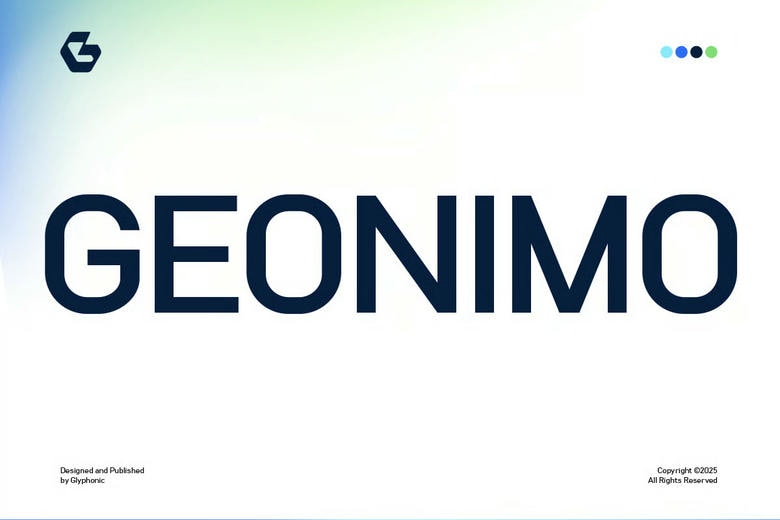
Geonimo Font
GEONIMO is a Modern Sans Serif Font, which combines a mixture of present style and style of the future. It is made to make a long lasting impression and is ideal to use in headlines, branding, logos, packaging, editorial layouts.
Giving personality and sophistication to any design, GEONIMO has high contrast strokes, modern sans, and future style. The typeface is one that is versatile and stylish regardless of whether you are creating fashion, lifestyle or artistic visual prints.
Geonimo Sans Serif Font